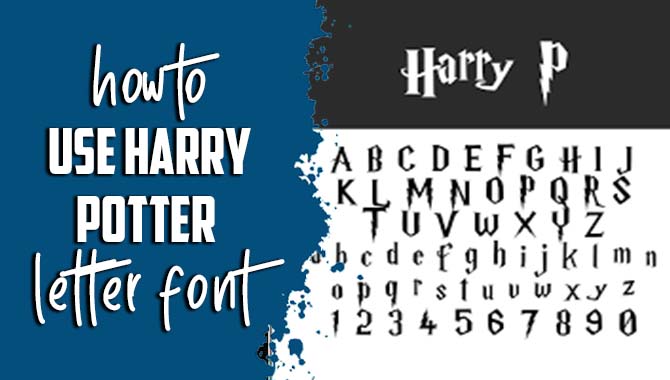
How To Use Harry Potter Letter Font – Unlocking The Magic
Unlock the magic of the Harry Potter series with the captivating “Hogwarts Wizard” font. Whether you’re a fan, a designer, or just love the Harry Potter universe, this font adds magic to your creations.
From party invitations to creative projects, the Harry Potter font is perfect for bringing the world of Harry Potter to life. Easily downloadable and customizable, this font lets you infuse the Potterverse into your work. Explore the wizarding world with every letter, invoking the spirit of Harry, Hogwarts, and the enchantment that lies within.
Step into the magical world of Harry Potter with the iconic Harry Potter letter font. Whether you’re a die-hard fan or just want to add a touch of magic to your designs. Here we will guide you through how to use Harry Potter letter font.
How To Use Harry Potter Letter Font
How To Use Harry Potter Letter Font – By Following Below Steps
The iconic Harry Potter letter font lets you infuse magic and whimsy into your designs. By incorporating this typeface, you can enhance the visual appeal, capture the essence of the Harry Potter world, and create a nostalgic connection.
Stand out from the crowd by adding this unique and recognizable element to your work, bringing the magic of Hogwarts into your everyday life. Here are guidelines on how to How to Use Harry Potter Letter Font:
Unlock the magic of your designs with the Hogwarts Wizard font. This typeface, featured in the beloved Harry Potter series, adds a touch of wizardry and nostalgia to any project. Whether you’re creating movie posters, invitations, or even personal projects, the Hogwarts Wizard font captures the essence of the Harry Potter universe. Download and install this fantastic font to unlock a world of creativity and wonder.
2. Select The Text
Adding a touch of magic and authenticity, the Harry Potter letter font can transform ordinary words into something resembling the iconic style of the wizarding world. Popular for themed parties, fan clubs, and cosplay events, this font evokes the excitement of receiving a Hogwarts acceptance letter.
Unlock the nostalgia with this font, perfect for invitations and decorations, and adding a fun twist to everyday writing. Explore the magic of the Harry Potter universe and capture the essence of Hogwarts in your projects.
3. Choose The Font
The font selection is crucial when recreating the iconic Hogwarts letter look in your Harry Potter-related projects. When choosing a typeface for your designs, consider the desired aesthetic and select from popular options like “Harry P” or “Wizarding World” fonts.
4. Continue Typing Or Editing
Adding a touch of magic and authenticity to your documents or designs is easy with the Harry Potter letter font. Whether you’re creating invitations, party decorations, or personalized gifts, this unique typeface captures the essence of the Harry Potter universe. I
Incorporating the Harry Potter letter font into your projects can infuse a sense of magic and authenticity. Whether you’re designing invitations, party decorations or seeking to incorporate a touch of the wizarding world into your day-to-day life, this font is an excellent option.
By following a few simple steps—installing the font, selecting the text, choosing the desired font style, and continuing with typing or editing—you can quickly unlock the enchantment of Harry Potter. So don’t hesitate to start creating captivating designs with the Harry Potter letter font today. We Hope the above guideline on how to How to Use Harry Potter Letter Font will be very helpful for you,
1.Where Can You Get The Harry Potter Font?
Ans: The Harry Potter font, also known as “Wizarding World,” is available on font websites like DaFont, FontSpace, and 1001 Fonts. Check the terms of use before downloading for personal or commercial use. Install the font on your computer to use it in applications like Microsoft Word or Photoshop.
2.Do You Know Of Any Other Harry Potter Fonts?
Ans: In addition to the official Harry Potter Letter Font, several other Harry Potter-inspired fonts are available. Some popular choices include Lumos, Wizard World, and Magic School. These fonts are ideal for creating magical designs like invitations or posters. However, please review the usage rights and licensing agreements before using them commercially.
Ans: The font for Harry Potter letters is “Wizarding World” or “Harry P.” It imitates the handwriting style seen in the movies. You can download this font for free from various websites and use it by installing it on your computer or using online text generators.